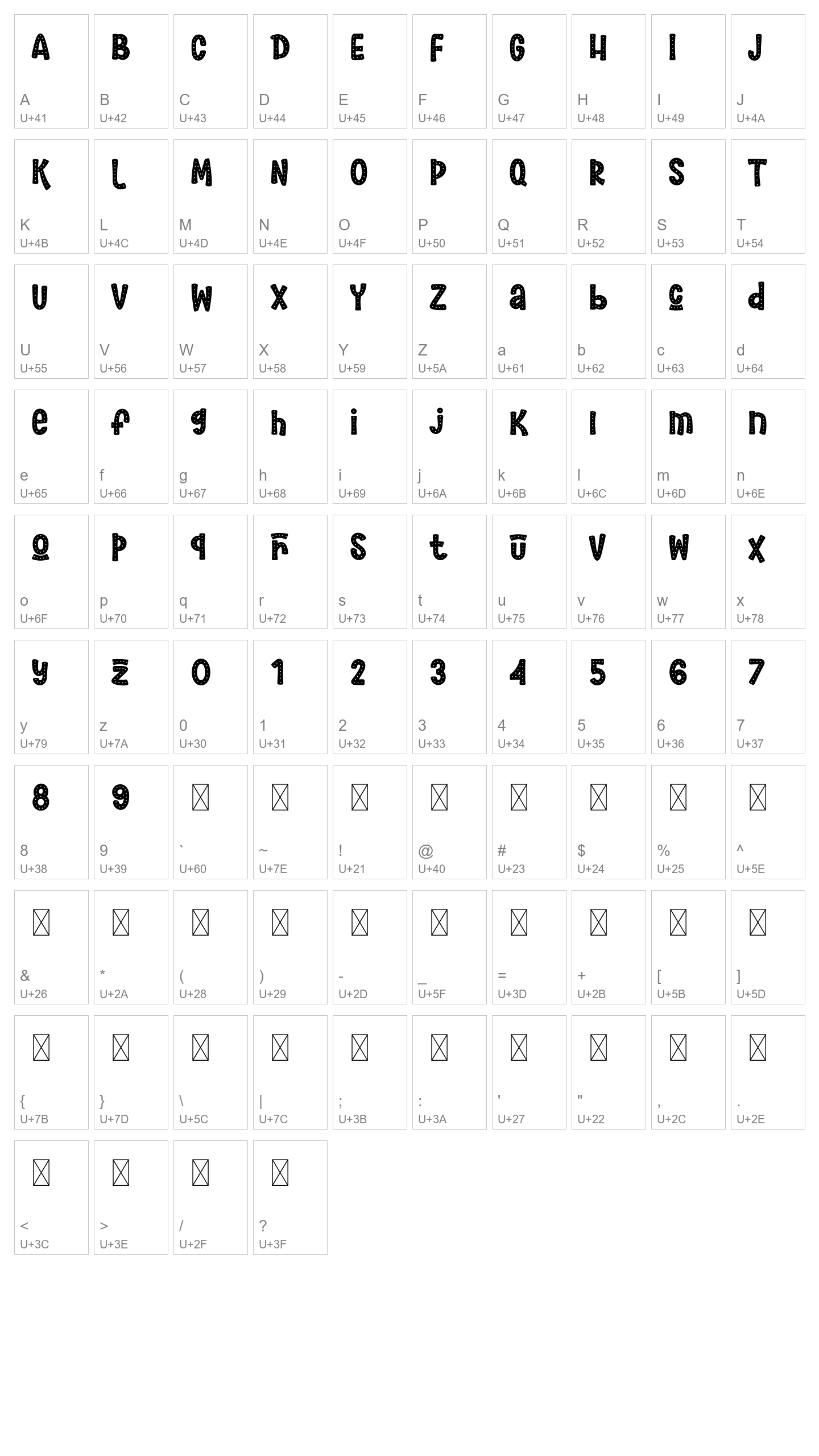
Glee
Add some excitement to your holiday projects with Glee, a contemporary and enjoyable Christmas font thatÂ’s ideal for sleigh rides, caroling, and other festive activities! Be imaginative and infuse your designs with some seasonal joy! The best part? You can download this fantastic font for free!